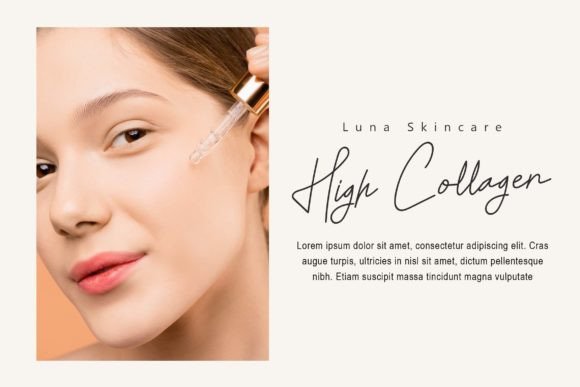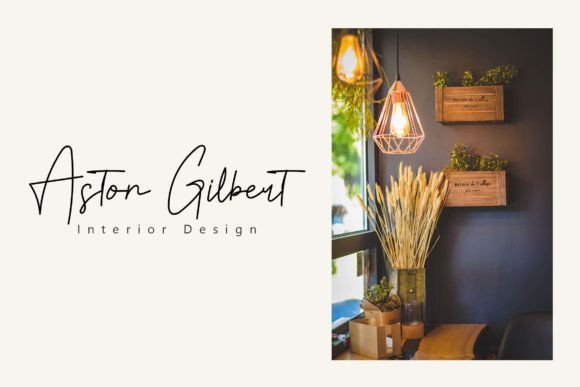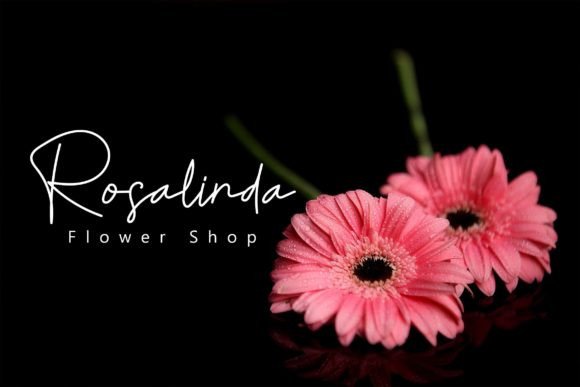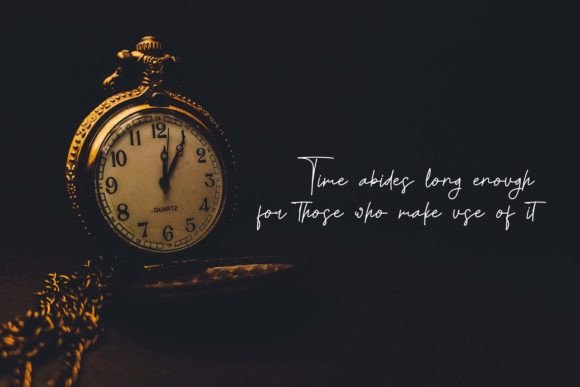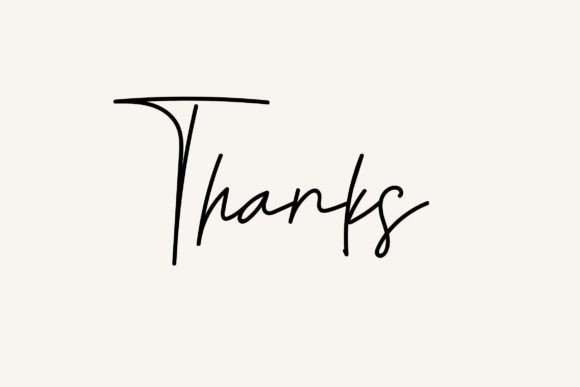
Introduction to Himeko Font
Himeko is a cute and fun script font with a strikingly authentic feel font is our new item that is suitable for your Posters.
Great for logos, posters, stickers, jerseys, invitation cards, brochures, and any project ideas that require a cute touch It is also PUA encoded which means you can access all of the glyphs and swashes with ease.
Key Features of Himeko Font
Why Choose Himeko Font?
Himeko Font offers exceptional quality and versatility, making it a valuable addition to your design toolkit. Whether you’re creating for personal projects or commercial use, Himeko Font delivers professional results.